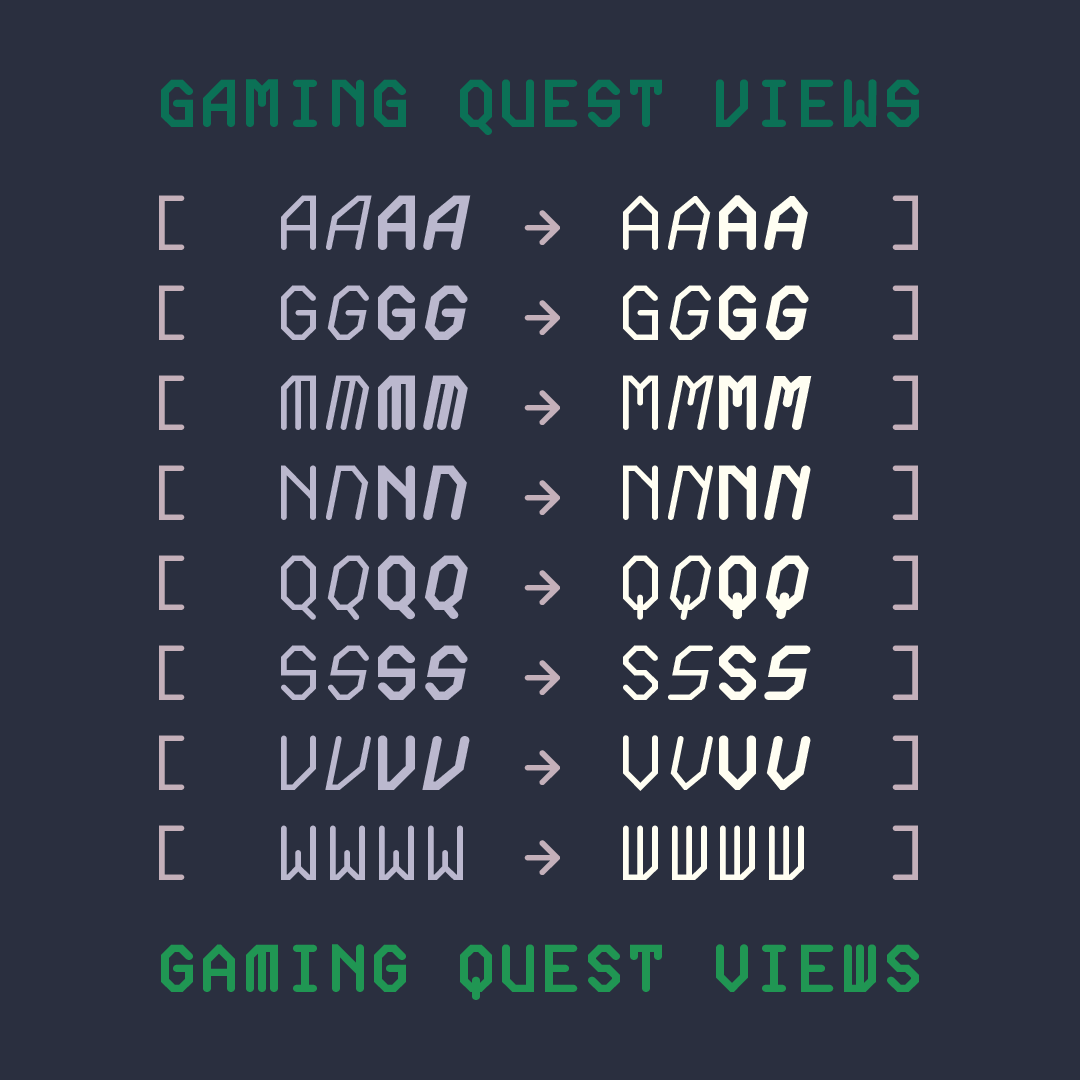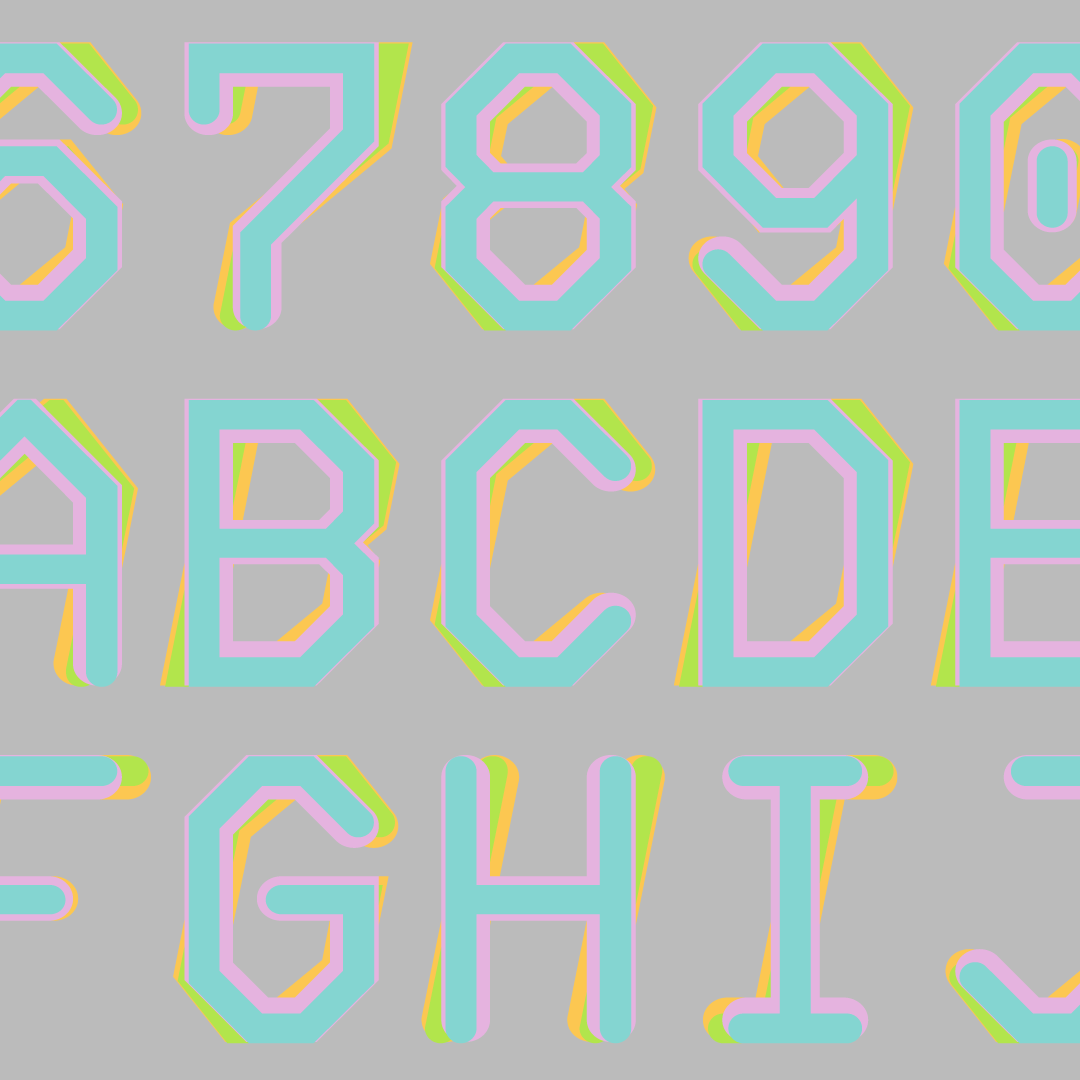
Oktal Mono™
A modularly structured, monolinear, and monospaced type family.
Designed by Joachim Müller-Lancé and Erik Adigard
A monospaced type family composed of entirely monolinear and modular structure, Oktal Mono first began in a design-philosophical discourse between Joachim Müller-Lancé and Erik Adigard of the design studio M-A-D in Sausalito, California. The typeface later came to life as an experiment wherein a type designer (Joachim) and a graphic designer (Erik) collaborate each in their own capacity, from within their respective disciplines.
Erik had proposed the idea of a typeface that would be intentionally generic but with no curves whatsoever by breaking expected curves into facets. Joachim concerned himself with examining systematically what happens when a circle is reduced or translated to a square, hexagon, or octagon, and which of these treatments appear the “least alien” to the original design: A condition that might even depend on the relation of type size to line width—smaller sizes needing fewer facets so they don’t look merely as crumpled curves.
First, Joachim determined an octagonal base was most appropriate for the average text size. Then the required glyphs were built systematically on a square grid like a construction toy, yielding large numbers of variations. Lastly, in lively discussion as always, character shapes were selected for best fit together in rhythm and consistent aesthetic.
Oktal’s concept is an interesting exploration in various design aspects. How far can you get by following simple, strict rules? When and where do you need to compromise, how far and in what manner? For adding detail in complex characters such as currencies, it was necessary to break the grid into smaller units, and for small shapes like fractions, to introduce slightly thinner strokes. Yet all of it could be achieved while never straying from 45° diagonals. Thus, the rhythm of letterforms becomes more intricate at times, but never changes tempo. •!•